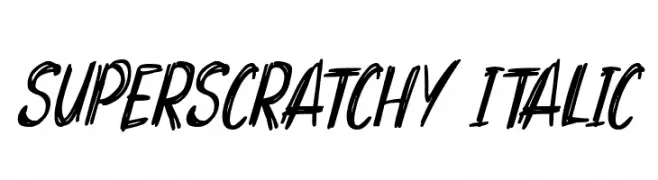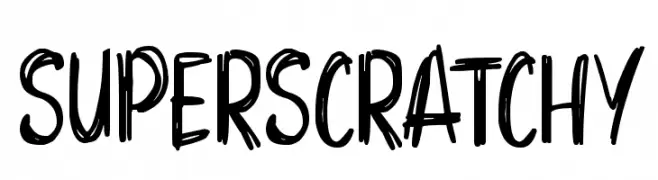
( Darrell Flood )
A bold, scratchy, hand-drawn font with a playful and informal style.
( Darrell Flood )
A scratchy, hand-drawn italic font with dynamic and expressive strokes.
( Debut Studio - Ari Fadli - creativemarket.com/debutstudio )
A dynamic brush-style font with scratchy, textured strokes for an artistic look.
( Fidel Mendoza )
A scratchy, hand-drawn font with a raw, edgy appearance.
( GroovyJournal - www.groovyjournal.com )
A playful, hand-drawn font with a scratchy texture and whimsical style.
( London's Letters - www.londonsletters.com/ )
A playful, decorative font with a cut-out paper style and jagged outlines.
( Peax Webdesign - www.peax-webdesign.com/portfolio-graphiste.html )
A hand-drawn, textured font with a scratched, edgy appearance.
( Peax Webdesign - www.peax-webdesign.com/portfolio-graphiste.html )
A scratchy, textured serif font with a bold, artistic flair.